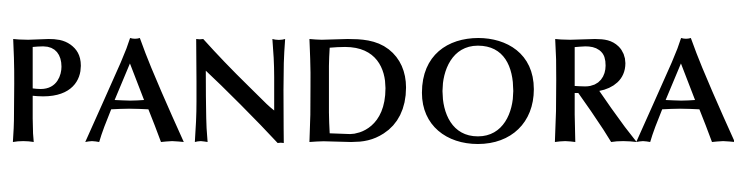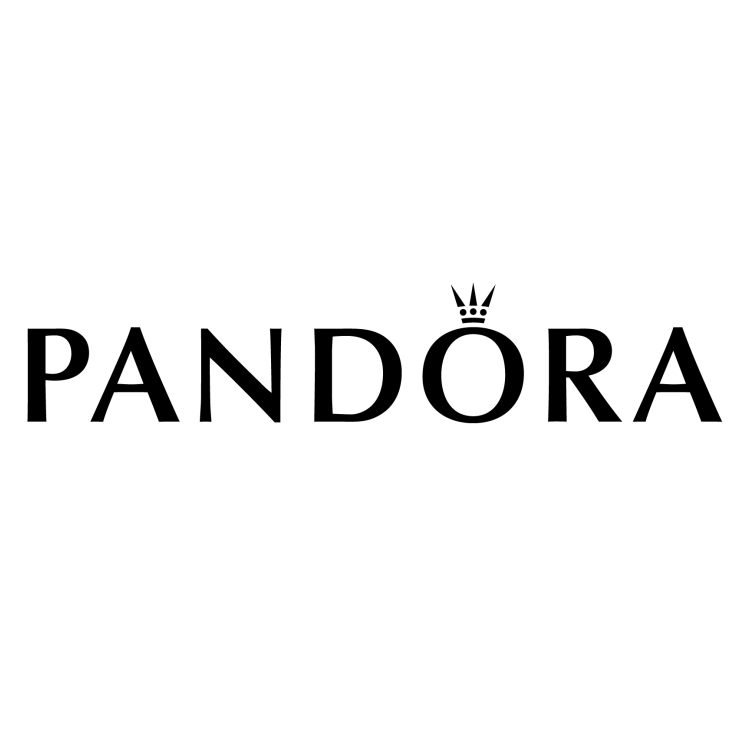
Pandora Logo Font
ApparelPandora is a Danish jewelry brand that was founded in 1982. It is known for its customizable charm bracelets, as well as its wide range of other jewelry items such as rings, earrings, necklaces, and watches. In Pandora's logo, the wordmark contains the letter "O" topped with an elegant crown.
The wordmark lettering is set in Optima Demi Bold, designed by Hermann Zapf for the German D. Stempel AG foundry.